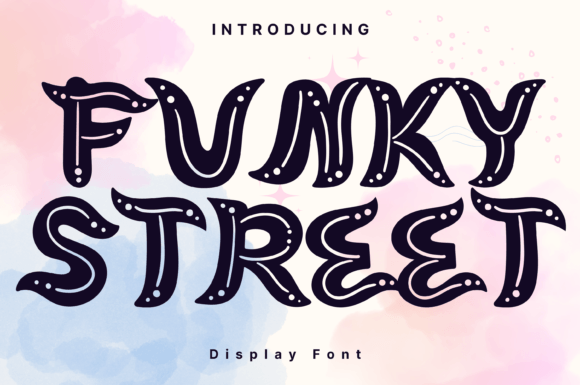
Embark on a typographic journey with Funky Street Font - a playful and vibrant display font, meticulously crafted by AchiArt, to bring life to your creative endeavors. Its charming handwritten style exudes a sense of whimsy and authenticity, perfect for adding a personal touch to your projects.
With Funky Street Font, you'll discover a world of possibilities. Whether you're designing eye-catching logos, creating heartfelt invitations, or crafting captivating social media posts, this font will transform your words into works of art. Its clean lines and easy readability make it a versatile choice for both digital and print projects, ensuring your message shines brightly.
Imagine the impact of your brand logo adorned with the unique characters of Funky Street Font, leaving an indelible impression on your audience. Let your invitations dance with joy as the handwritten strokes of this font convey the warmth and excitement of your special occasion. And watch as your social media posts come alive with personality, attracting attention and sparking conversations.
Funky Street Font is more than just a font; it's an expression of your creativity. Its playful nature invites you to experiment with colors, textures, and layouts, opening up a realm of endless possibilities. Unleash your imagination and see how this font transforms your designs into captivating masterpieces.